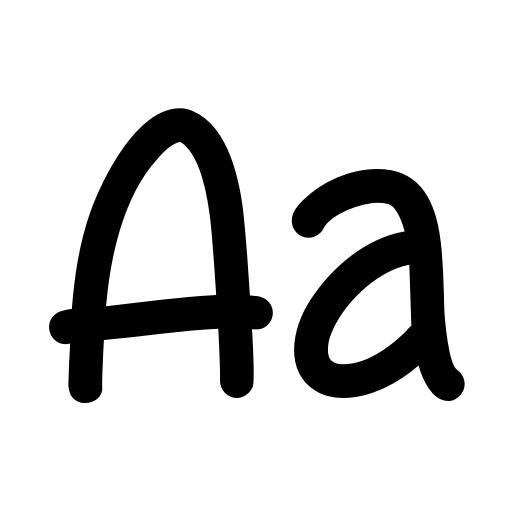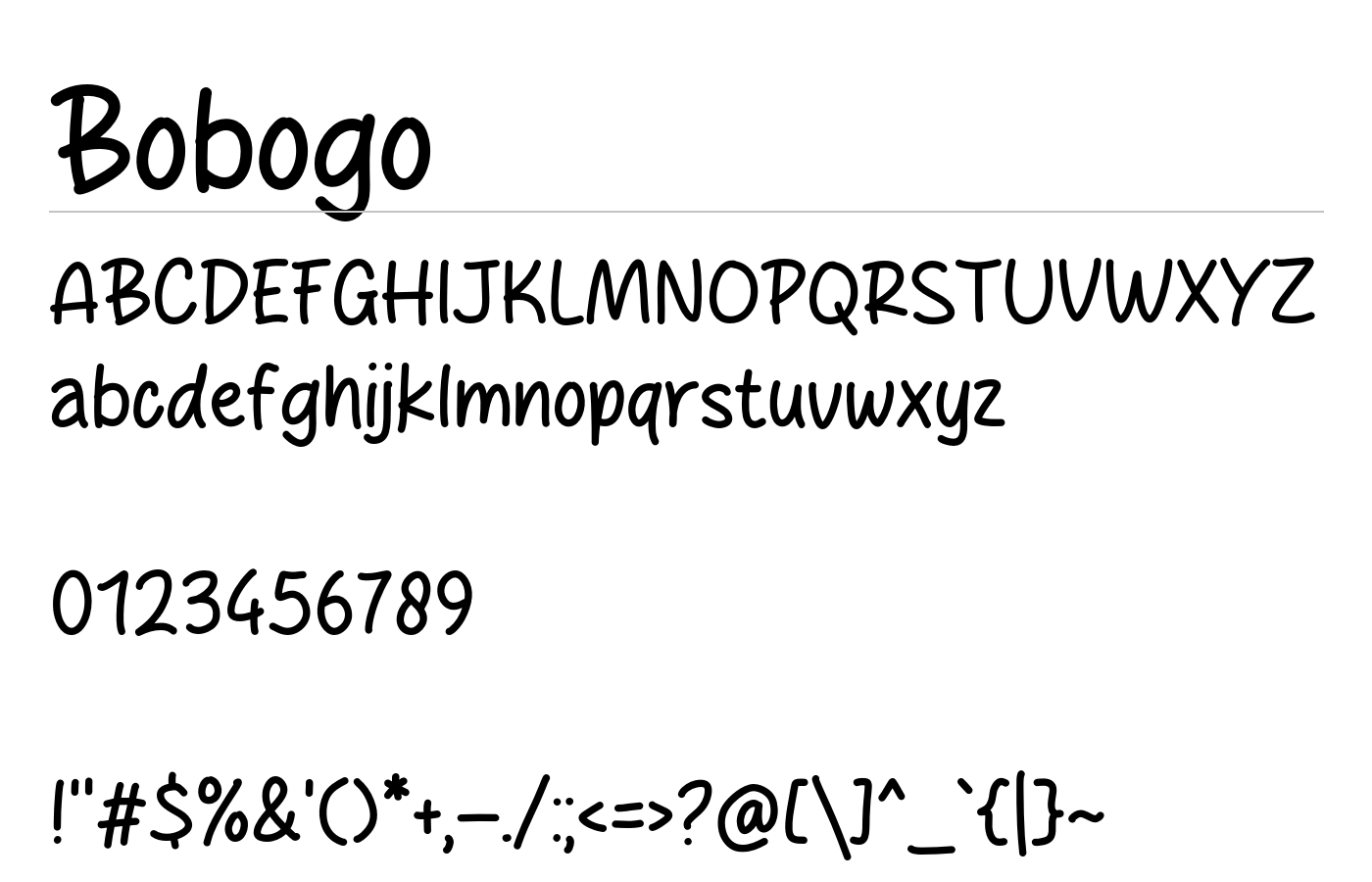
Bobogo is a playful and casual handwritten sans-serif font with a friendly, rounded style that brings a warm and approachable feel. Its irregular strokes and medium weight make it perfect for informal, fun designs like kids’ books, greeting cards, or personal branding that needs a relaxed, human touch. This font works especially well in headlines and short text where personality and charm are key.
Bobogo Font
About Bobogo Font